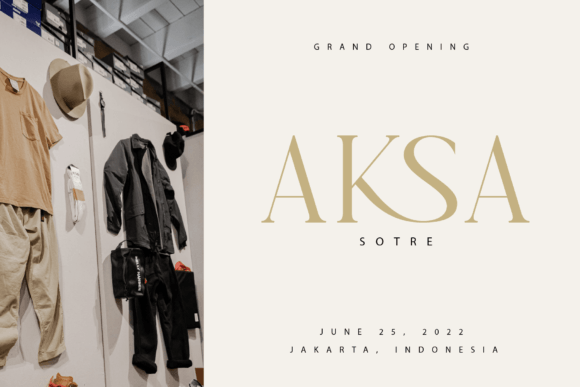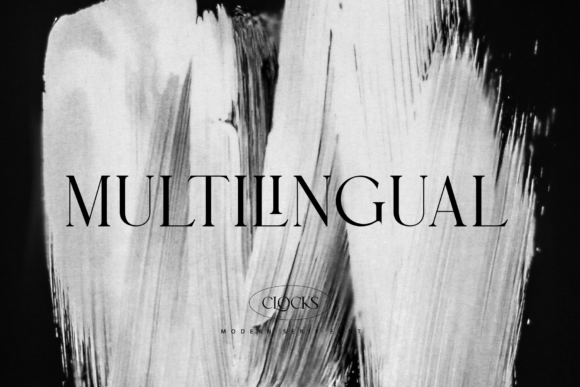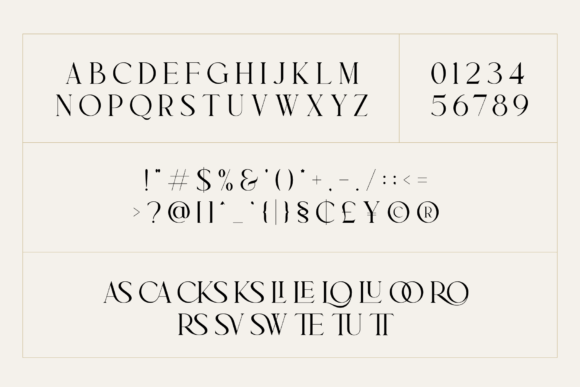
Introduction to Clocks Font
Imagine you’re in the middle of a design project, pouring your heart and soul into every detail, and then you stumble upon the perfect font – one that elevates your creative vision and leaves a lasting impression. This is exactly what happens when you discover the Clocks Font, a modern and elegant serif font that’s about to revolutionize your design process.
As a valuable design resource, the Clocks Font offers a unique blend of style and sophistication, making it an ideal choice for a wide range of creative projects. From branding and logo design to fashion and editorial work, this high-quality font is sure to impress. And the best part? It’s available for free download, allowing you to bring your creative vision to life without breaking the bank.
Key Features of Clocks Font
- High-quality design resource with a unique and creative style, perfect for various projects
- Features a large character set, including uppercase and lowercase letters, numbers, and punctuation marks
- Perfect for creative projects, such as logos, posters, and typography-based designs, where a unique and eye-catching font is required
Honest Review: Clocks Font
I recently stumbled upon the Clocks Font, a free download that has been gaining popularity among designers. I was excited to dive in and see what all the fuss is about.
Here are some things that I think work well with this font:
- ✨ Unique design: The Clocks Font has a quirky, eye-catching aesthetic that’s perfect for adding a touch of whimsy to creative projects.
- ✨ High quality: The font is well-crafted and looks great at a variety of sizes.
- ✨ Transparent background: This makes it easy to use the font over complex backgrounds without any issues.
However, I do have a few concerns:
- ⚠️ Limited font sizes: While the font looks great at larger sizes, it can get a bit rough at smaller sizes.
- ⚠️ Not ideal for body text: Due to its unique design, the Clocks Font isn’t the best choice for large blocks of text.
Overall, I think the Clocks Font is a great design resource for designers who want to add some personality to their projects. While it may not be suitable for every situation, it’s definitely worth checking out if you’re looking for a high-quality, free font to spice up your designs.
Clocks Font
Clocks Font is a high-quality design resource perfect for creative projects. It’s available for free download with a transparent background, making it easy to integrate into various designs.
Tips for Getting the Most Out of Clocks Font
Use Clocks Font in creative ways, such as in time-themed designs, or to add a touch of nostalgia to your projects. Experiment with different font sizes and styles to create visually appealing designs.
Clocks Font is ideal for use in time-themed designs, such as calendars, clocks, and watch faces. It’s also great for use in retro-themed designs, or to add a touch of whimsy to your projects.